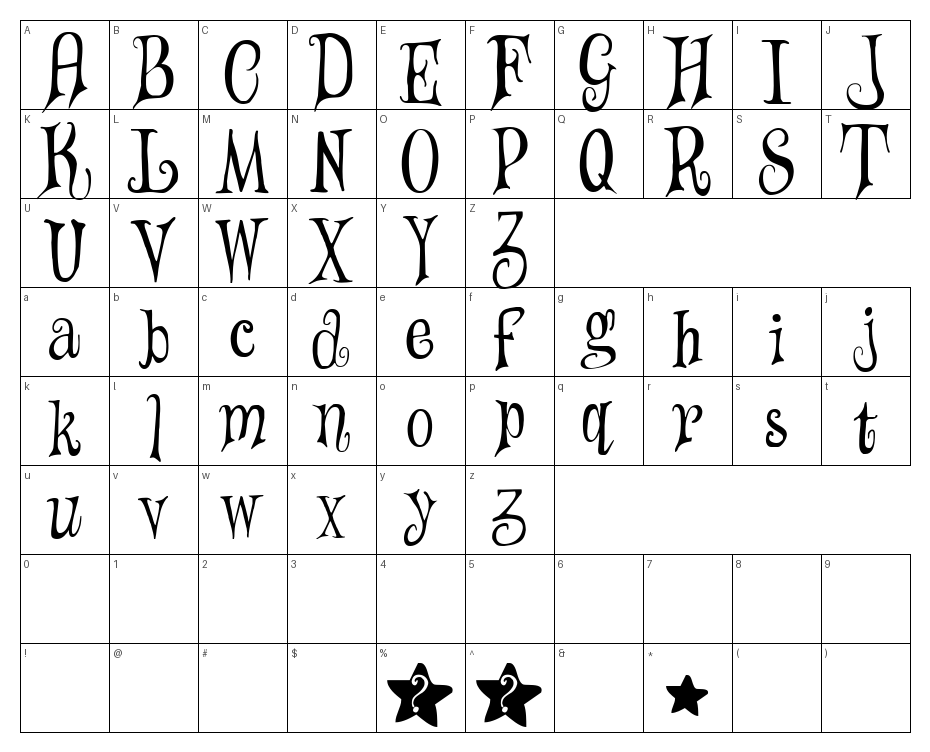
After reading J K Rowling's magical Harry Potter books I wanted to create a swirling star encrusted font that would capture the imagination.
Font Name: Wizards Magic
Designer Name: SpideRaYsfoNtS